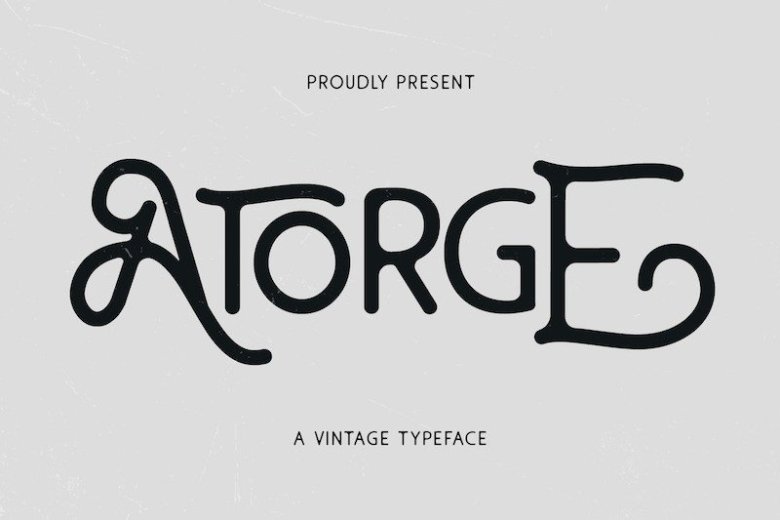
Atorge Display Font
Atorge Display Font is a playful fonts that contain uppercase, lowercase, symbol, alternate, and also support multi language. Made from font designer named Maulana Creative. Atorge is perfectly suited to signature, stationery, logo, typography quotes, magazine or book cover, website header, clothing, branding, packaging design and more.